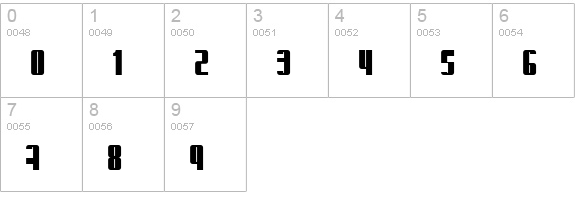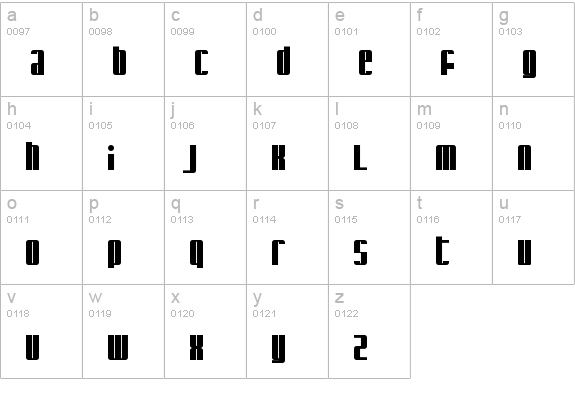
Glaring Font Details
Glaring font is a bold and eye-catching typeface that exudes a sense of power and confidence. Its sharp, angular lines give it a modern and edgy feel, making it perfect for making a statement in your designs. The unique design of Glaring font will draw attention and leave a lasting impression on viewers. What's even better is that Glaring font is available for free download at FontsMarket.com. This means you can easily add this striking font to your collection without any cost. Whether you're working on a poster, logo, or any other project that needs a touch of boldness, Glaring font is the perfect choice. Download it now and make your designs stand out!